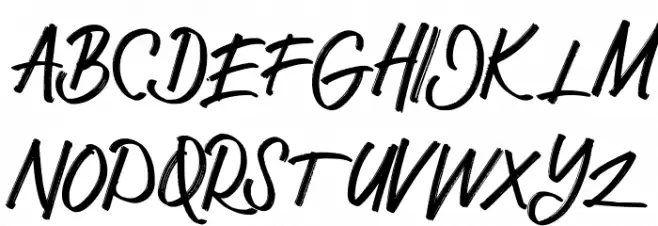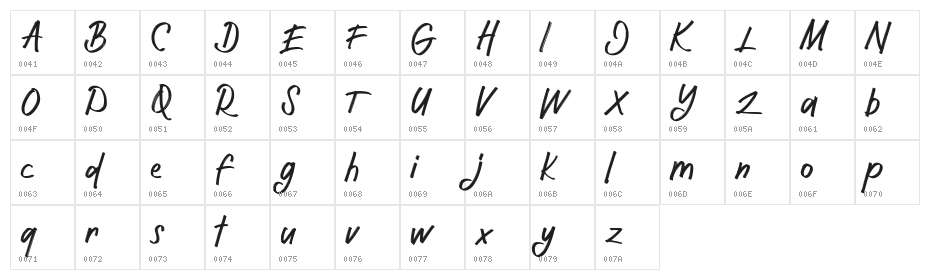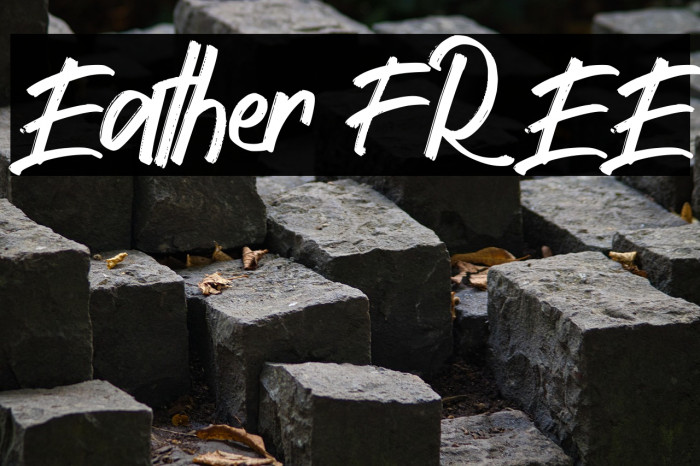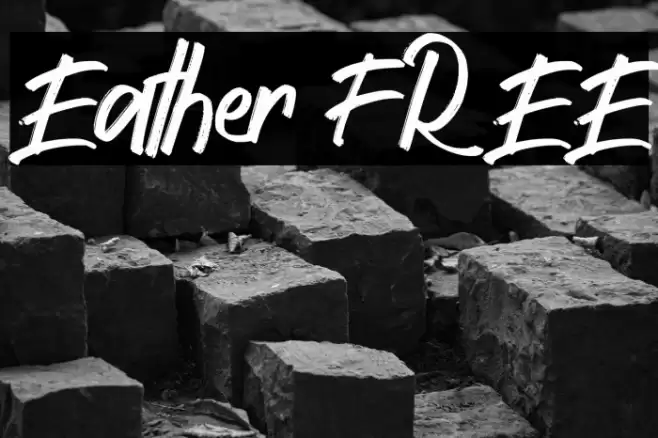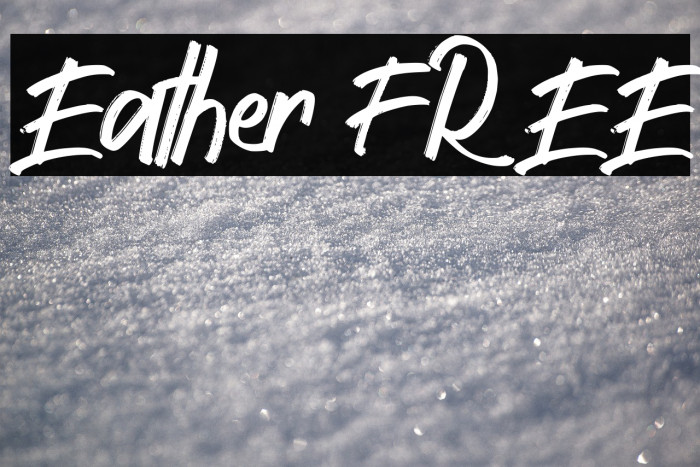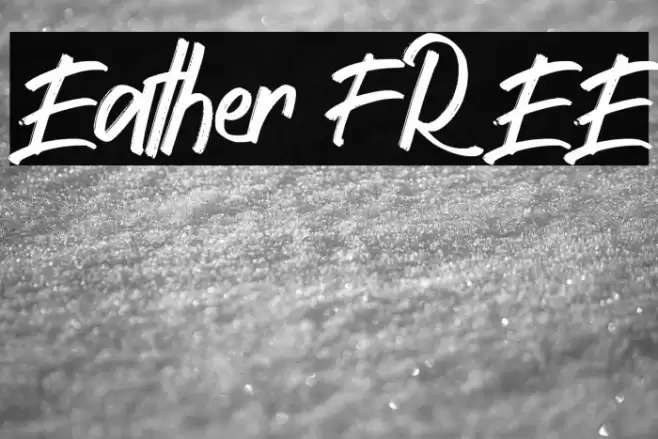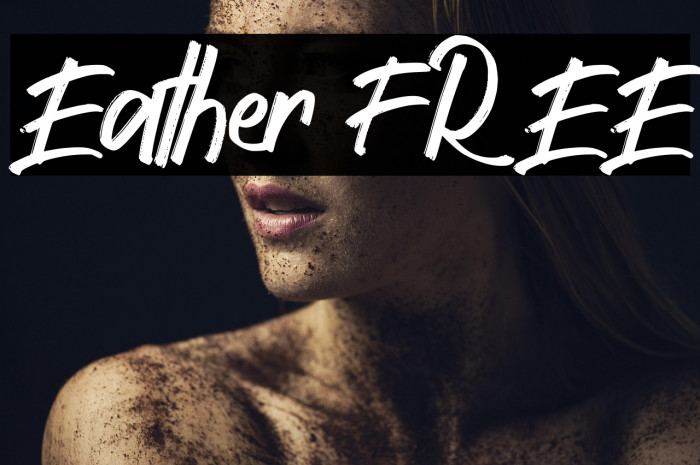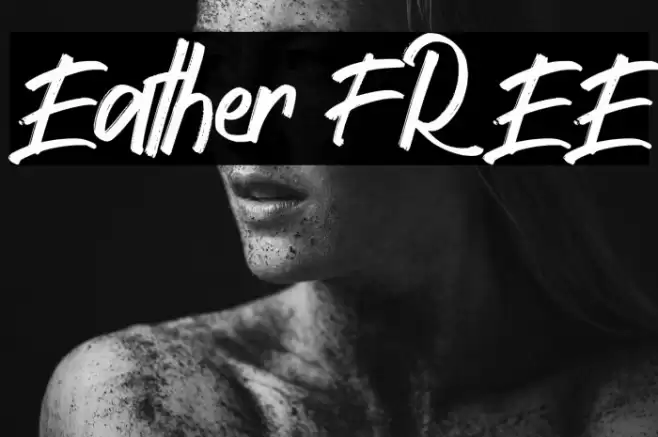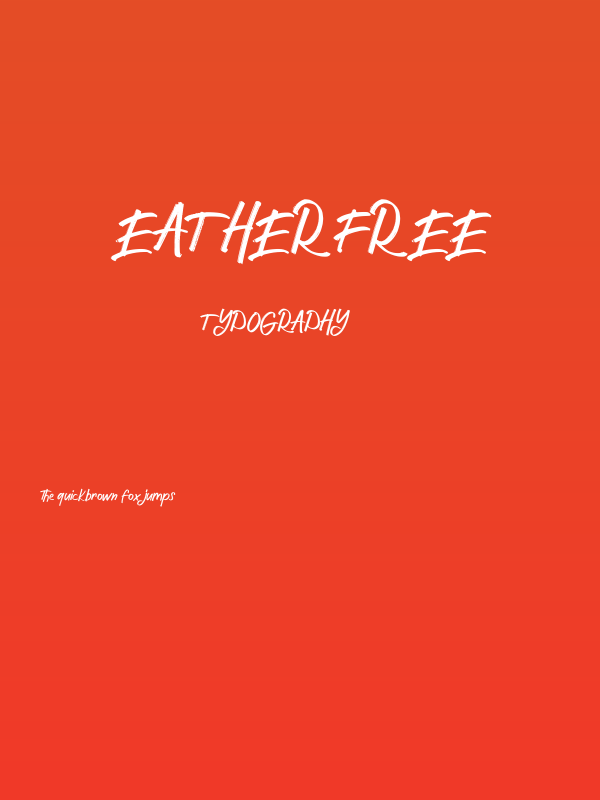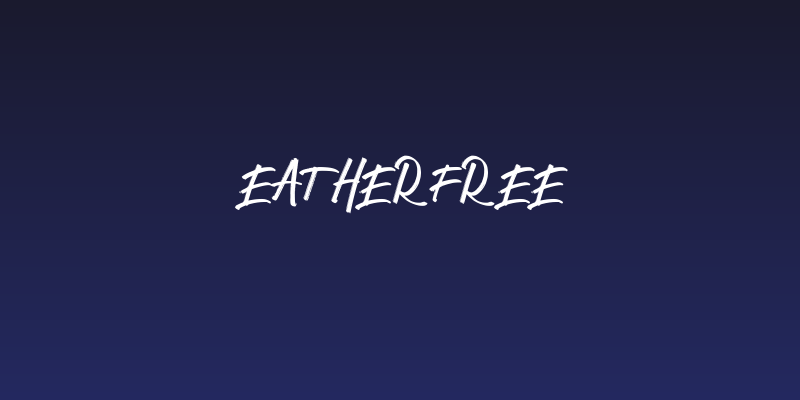
Eather FREE Font
Eather FREE Description
This font features a dynamic and expressive handwritten style, characterized by its fluid strokes and playful curves. The uppercase and lowercase letters exhibit a consistent slant, adding a sense of motion and energy. The boldness of the strokes varies, creating a lively texture that enhances its handwritten appeal. The characters are well-spaced, allowing for readability while maintaining an artistic flair. The font's unique personality is further highlighted by its distinctive letterforms, such as the looped 'g' and the sweeping tails of letters like 'y' and 'j'. This font is versatile, suitable for projects that require a personal touch or a creative edge.
| Use Case | Logos, Headlines, Artistic projects |
| Proposed Projects | Ideal for greeting cards, invitations, branding, social media graphics, and artistic projects. |